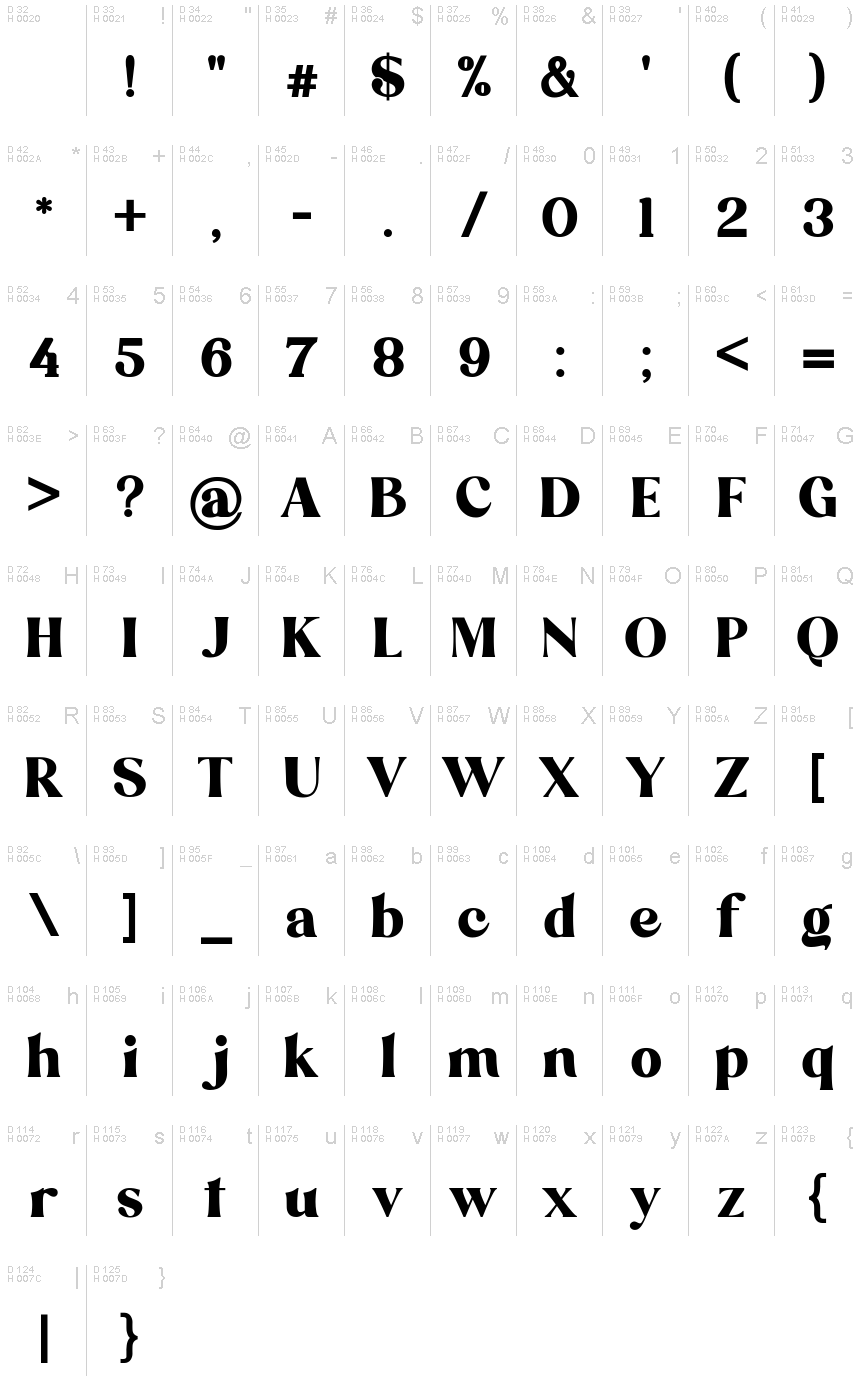
DaniloCatalina
Danilo Catalina, a modern chic serif font crafted by UI Creative, exudes a harmonious blend of elegance and sophistication. Its bold strokes and refined serifs create a captivating visual presence, inviting the reader to engage with the content. The font's distinctive character and attention to detail evoke a sense of refined sophistication, making it a compelling choice for a wide range of design projects.
This versatile font seamlessly adapts to various applications, from high-end editorials and corporate branding to luxurious lifestyle publications. Its bold, yet refined nature lends itself well to commanding headlines, while the harmonious interplay of thick and thin strokes ensures exceptional readability in body text. Danilo Catalina's versatility and timeless appeal make it a valuable addition to any designer's toolkit.